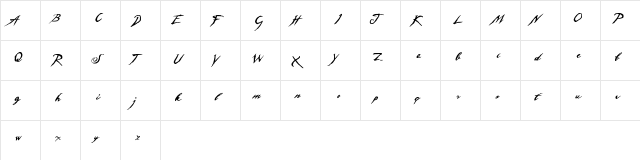
Sleepy Hollow 2.0 Regular
Design Context for Sleepy Hollow 2.0 Typeface
Sleepy Hollow 2.0 is a composed and adaptable typeface that performs quietly and consistently across a wide range of design contexts.